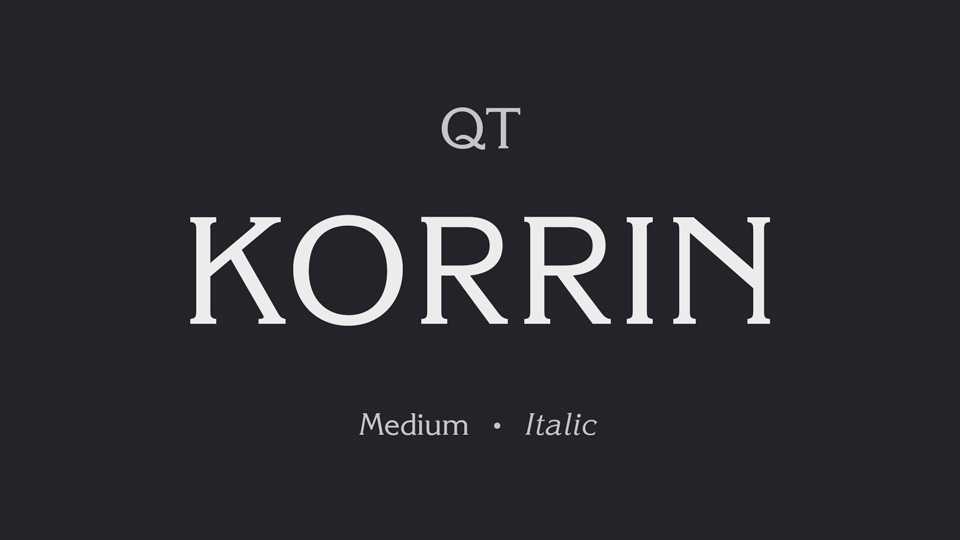
Download Korrin typeface, a sans serif font family based on the Korinna, first appeared in 1904 and introduced by the Berthold foundry into the Art Nouveau period of full-bodied proportions and unusual character shapes.